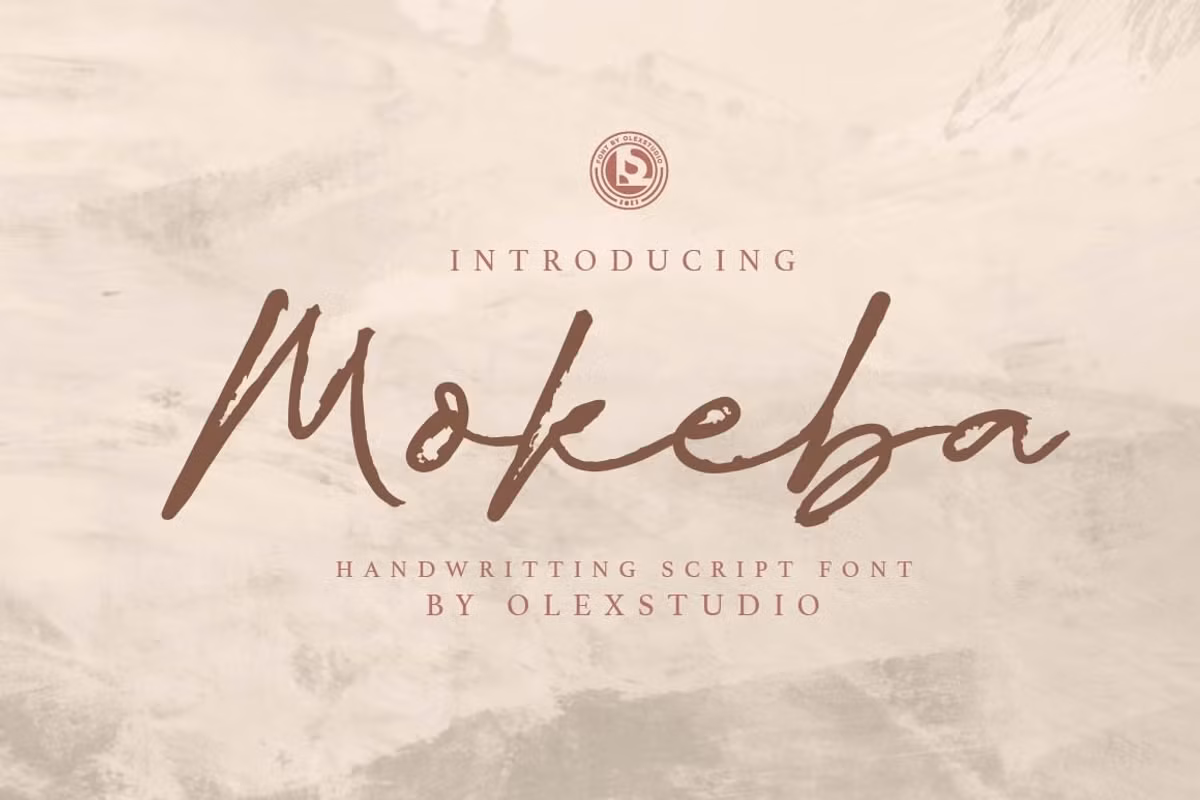
Mokeba Handwriting Font Free Download is a playful and authentic script typeface that captures the charm of natural, hand-drawn lettering. Please note: you must purchase this font for commercial use, but you can test it through a free download. With its casual strokes and friendly vibe, Mokeba is perfect for logos, greeting cards, social media posts, planner pages, quotes, and DIY-style branding.
This font brings a relaxed and personal feel to any project—ideal for creatives looking to add a touch of warmth and spontaneity to their typography. Whether you're crafting a heartfelt message or designing a cozy lifestyle brand, Mokeba Handwriting Font Free Download adds character and originality to your work. Fully compatible with Adobe Illustrator, Photoshop, Canva, and more. Download it today for personal use and infuse your designs with the playful energy of Mokeba.